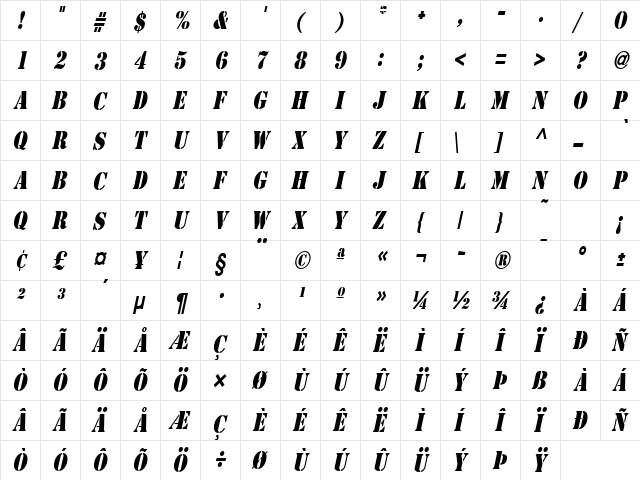
GI StencilCondensed Italic
Design Context for GI StencilCondensed Typeface
GI StencilCondensed has the rough pragmatism of spray-painted stencil signage, adding a raw, street-level authenticity to designs. The dynamic lean of this cut emphasises speed and emphasis in any layout.
A strong choice for packaging that needs edge, warehouse aesthetics, and rough-and-ready visual identities.
Pro Tip: Use GI StencilCondensed at large sizes on packaging, posters, or apparel where the stencil cutaways read clearly. Avoid small sizes where those gaps become visual noise.